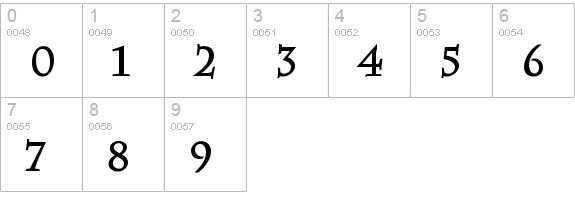
Chaz Bold is a strong, high-contrast variant in the Chaz typeface family \xE2\x80\x94 well suited to headlines, attention-grabbing titles, and strong calls-to-action.
Chaz Bold font is a striking and bold typeface that exudes confidence and modernity. With its strong, thick lines and sharp edges, Chaz Bold commands attention and makes a statement in any design project. Whether you're looking to add a touch of boldness to your branding, posters, or website headers, Chaz Bold is the perfect choice. Best of all, Chaz Bold is available for free download at FontsMarket.com. This means that you can easily access this eye-catching font and use it in your projects without any cost. Don't miss out on the opportunity to elevate your designs with the impactful and stylish Chaz Bold font today!